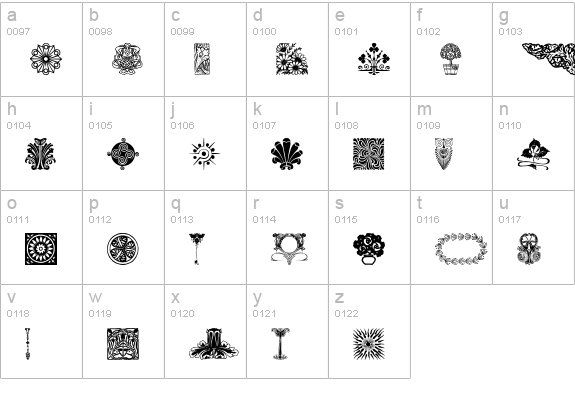
DesignerMotifsThree Font Details
DesignerMotifsThree font is a stunning and versatile typeface that brings a touch of elegance and sophistication to any design project. With its unique motifs and intricate details, this font is perfect for adding a special flair to invitations, branding materials, packaging, and more. What sets DesignerMotifsThree font apart is not only its beauty but also its accessibility - it is available for free download at FontsMarket.com. This means that you can easily incorporate this gorgeous font into your projects without breaking the bank. Whether you're a professional designer looking to elevate your work or a hobbyist seeking to add a special touch to personal projects, DesignerMotifsThree font is the perfect choice. Download it today and let your creativity shine!